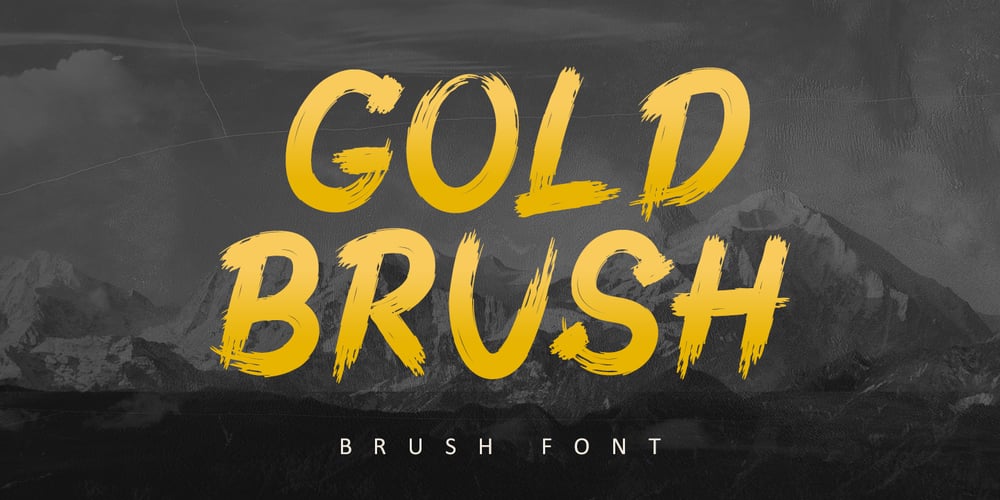
Gold Brush Font Family was designed by Bayu Suwirya and published by Illushvara. Gold Brush contains 1 styles and family package options. Gold Brush is a bold brushed display font. Its assertive and dramatic style makes this font a good fit for creating logos, branding, posters, and crafty DIY projects.What you get :Gold Brush. OTFIf you have any question, don’t hesitate to contact me. Happy Designing !!!Thank You,Bayu Suwirya